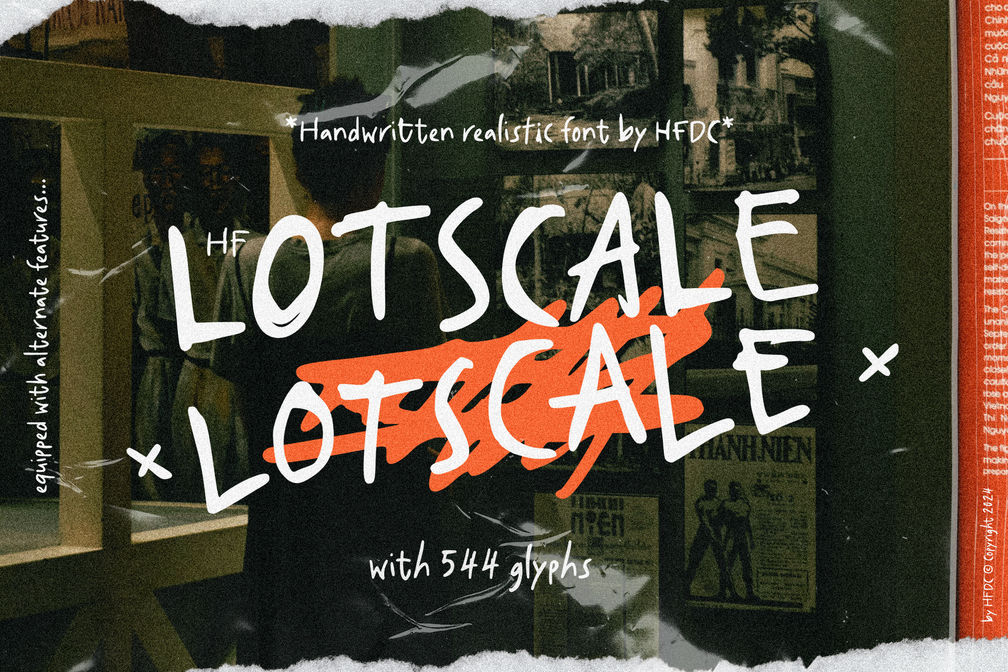
Lotscale Scratch Note Font
Introducing Lostscale, a captivating handwriting font that embodies the essence of playful brushstrokes and the charm of hand-scribbled notes. This font captures a delightful blend of messiness and realism, making it a perfect fit for projects that call for a personal touch. With its scratchy yet stylish appearance, Lostscale is ideal for creating eye-catching logos, memorable quotes, and engaging social media text. Its unique character shines through, making it an excellent choice for music video lyrics and product packaging that need to stand out in a crowded marketplace.
Lostscale is designed with versatility in mind, featuring a robust set of over 400 glyphs that support multilingual applications. Whether you’re crafting a whimsical brand identity or designing promotional materials, this font offers stylistic alternates that can cater to your creative vision. Available in TTF, OTF, WOFF, and WOFF2 formats, Lostscale ensures seamless integration into various design software, allowing you to effortlessly bring your concepts to life. Embrace the playful spirit of Lostscale and transform your projects with this dynamic and expressive font.
• All caps handwriting font
• Number
• Punctuation
• Alternate character
• Multilingual support